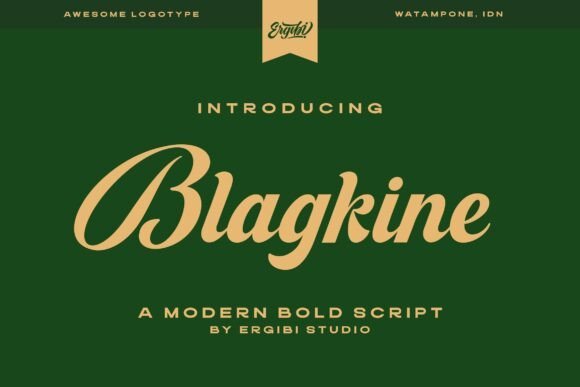
Introduction to Blagkine Font
Blagkine is a bold script font with a classic style.
This font is equipped with stylistic sets, ligatures, contextual alternates, and multilingual support, making it versatile and easy to use in any creative project With its striking and unique appearance, Blagkine is perfect for enhancing your work, such as logotypes, branding, product packaging, invitations, apparel design, web design, magazine covers, book titles, and more.
Key Features of Blagkine Font